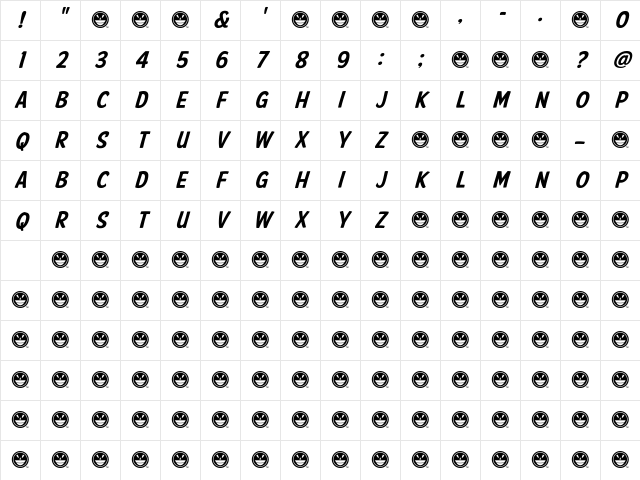
Complete American Purpose Casual 02 Regular glyph index. Displaying only characters natively supported by American Purpose Casual 02 Regular font.
American Purpose Casual 02 is a composed and adaptable typeface that performs quietly and consistently across a wide range of design contexts.